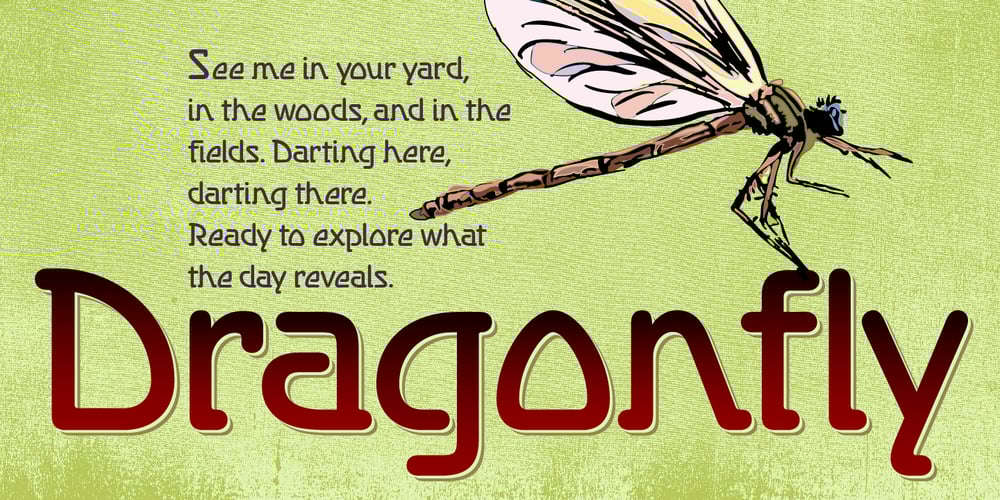
Dragonfly BF Font Family was designed by John Bomparte and published by Bomparte’s Fonts. Dragonfly BF contains 4 styles and family package options. Inspiration for Dragonfly BF came from such early 20th century typefaces as Windsor and Greeting Monotone. It’s a bit eccentric, but in a funky-cool way. It’s named after one of my favorite insects, a fascinating creature which is the only one (that I’m aware of), besides the hummingbird, that’s capable of flight in all directions: up, down, left, right, forwards and backwards. What an air show! Dragonfly Closed BF is of course the same font style, however, it’s without the stencil breaks present in the primary design. Stylistic Alternates for capitals I, and N, as well as lowercase f, i, j and y, are included in both fonts. Dragonfly fits in well in a variety of settings such as logotypes, signage, music and games packaging, or even techno sci-fi. Though it is meant primarily for display, it can certainly be employed in short paragraphs of large text.